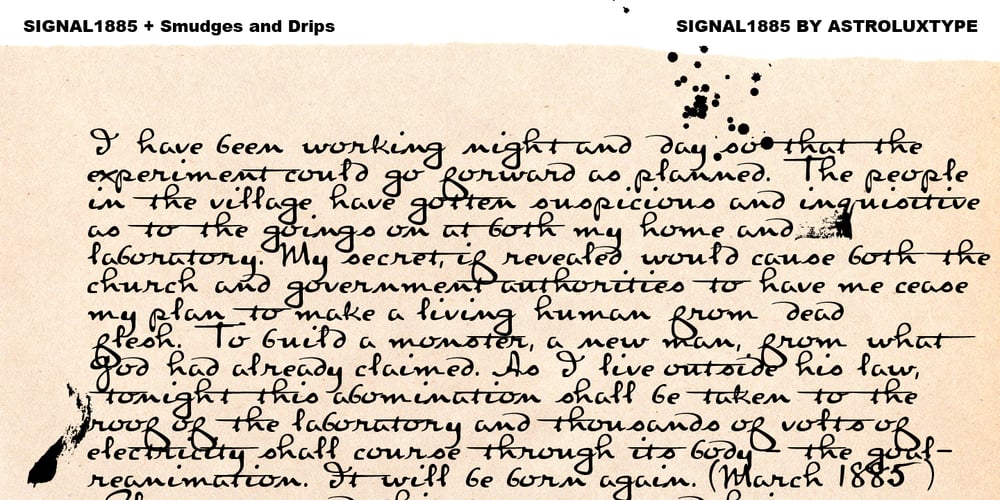
Signal1885 Font Family was designed by Glenn Parsons and published by astroluxtype. Signal1885 contains 1 styles and family package options. Signal1885 is the abbreviated name for “(Sig)nature Jour(nal)” a font that harkens back to an era, when fine handwriting filled journals with observations of science and adventure. Intimate and reflective of an individual entering his thoughts in his personal journal or a ship’s captain documenting his voyage on a daily basis. Signal1885 is penmanship that reflects hand forms from by-gone days. Its a minimal glyph set which can be used at various sizes as small as 18 points. It includes a selection of ink drips and smudges, that are the “mark” of a hand done entry. These can be placed in strategic places on the type to indicate a hand dragging through or dripping fresh ink on to the paper. Set sail- and keep a diary of your voyage.